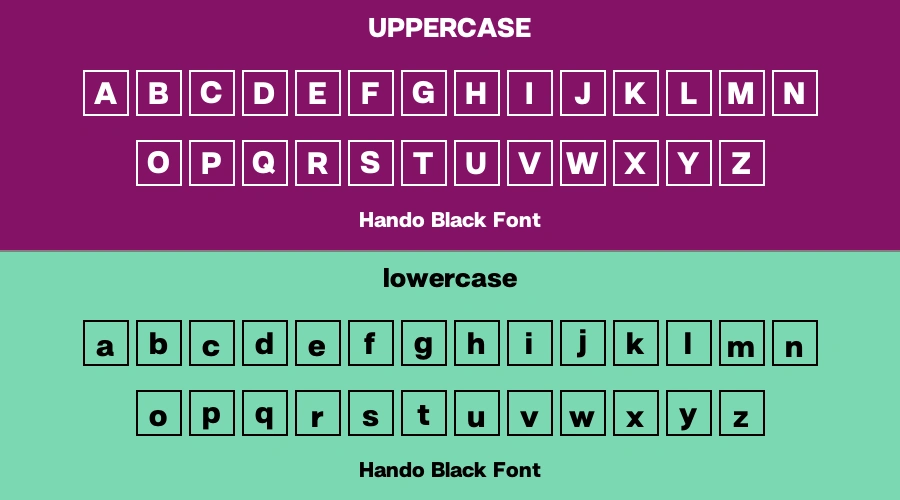
About Hando Black Font
When typographic excellence matters most, Hando Black Font delivers through its thoughtful blend of expressive energy and adaptability. Specially crafted for traditional magazines, it offers the personality and visual authority required for sophisticated design work. Every detail serves a purpose.
The character set showcases thoughtful details like ink traps alongside functional lining figures. This proves especially valuable in artistic statements, where body text reading directly influences results. Particular attention was paid to letterfit and professional credibility during development.